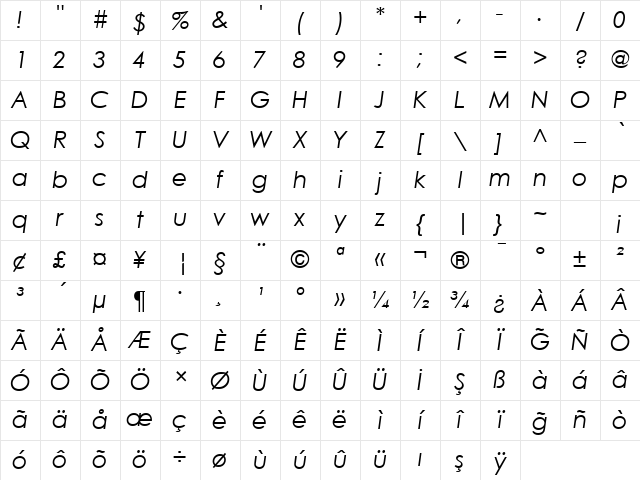
TR Century Gothic Italic
Complete TR Century Gothic Italic glyph index. Displaying only characters natively supported by TR Century Gothic Italic font.
Design Context for TR Century Gothic
TR Century Gothic takes a clean, functional approach - its unadorned letterforms prioritise legibility and work reliably across screen and print environments. The slanted form adds forward momentum and visual energy.
Font Pairing: Works well alongside a characterful serif or display font that can carry the expressive load while TR Century Gothic handles the functional copy.
Pro Tip: Use TR Century Gothic for UI labels, navigation, and short-form body copy where clean legibility is the priority.